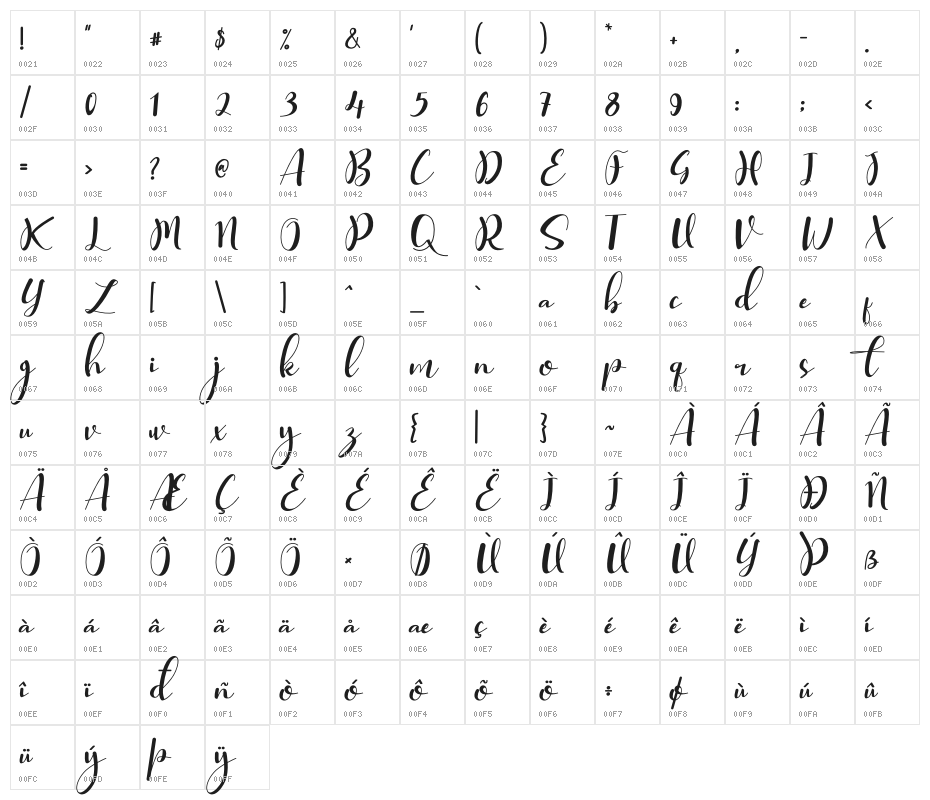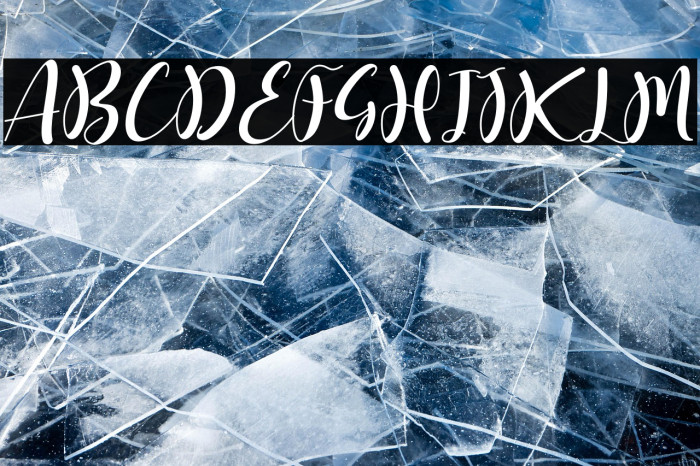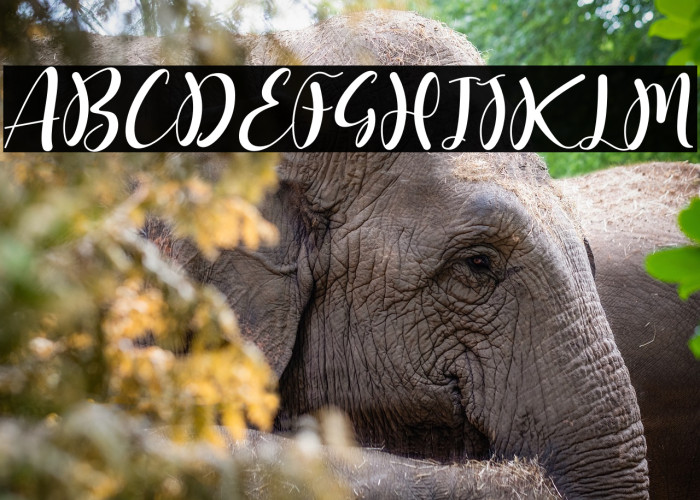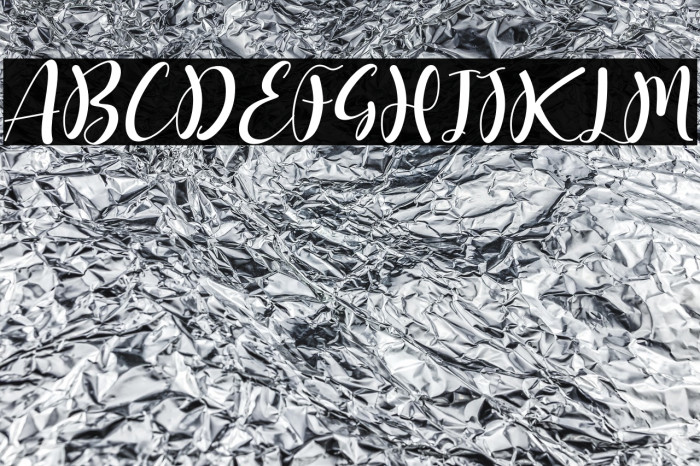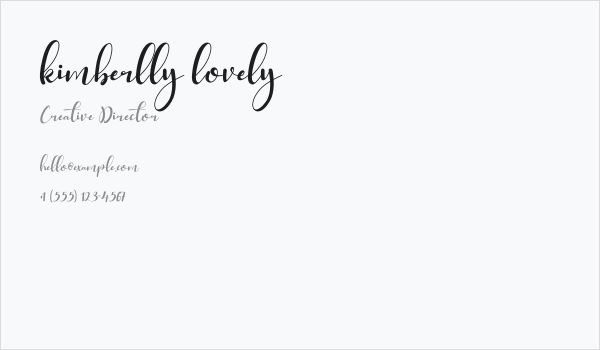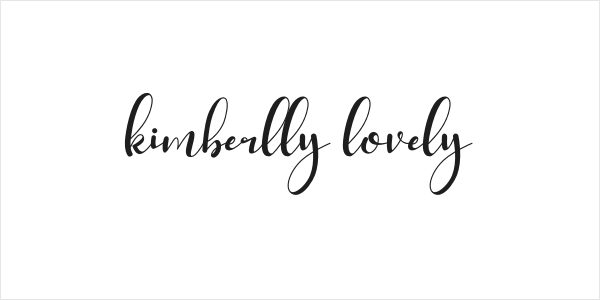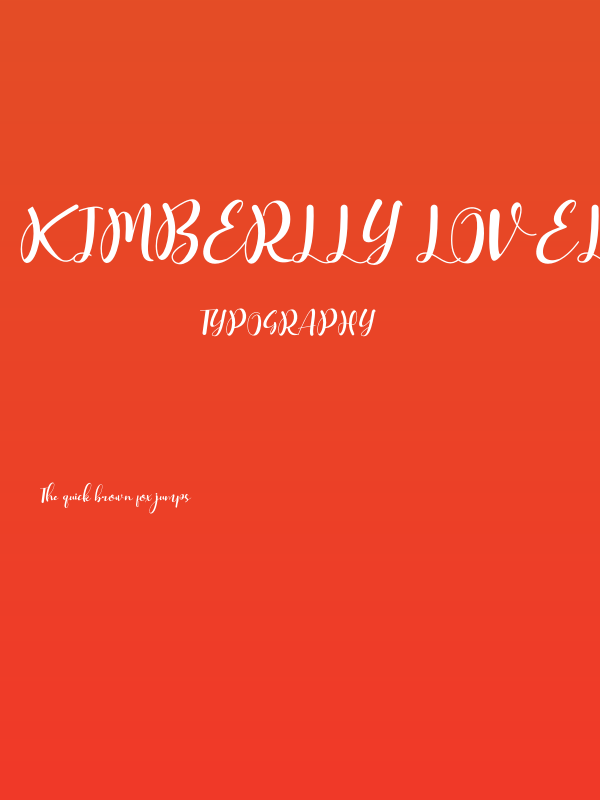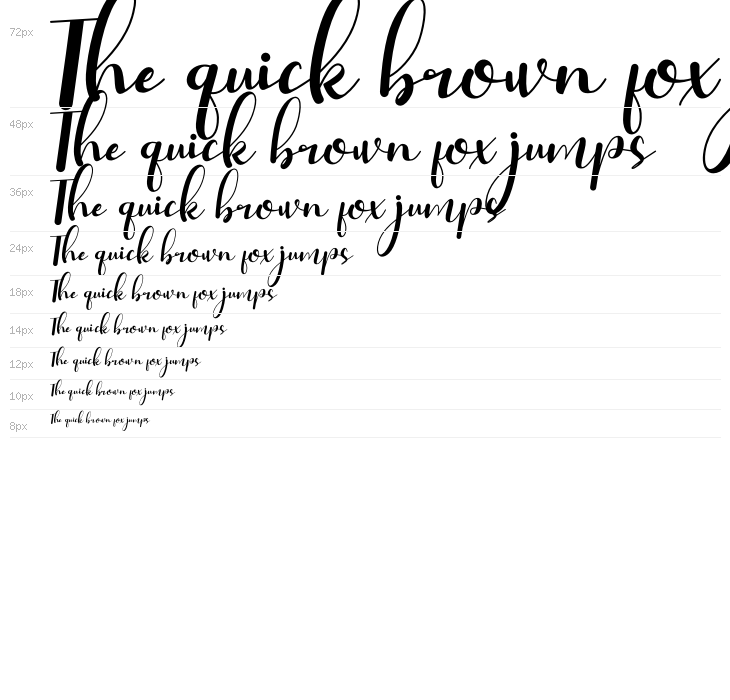
kimberlly lovely Font
kimberlly lovely Description
This font features an elegant and flowing script style, characterized by its smooth, cursive lines and graceful curves. The uppercase letters are distinct with a slightly exaggerated flourish, while the lowercase letters maintain a consistent and harmonious flow. The numerals are designed to complement the letters, offering a cohesive look. Special characters are crafted with the same attention to detail, ensuring they blend seamlessly with the rest of the font. This font exudes a sense of sophistication and charm, making it ideal for projects that require a touch of elegance.
| Use Case | Logos, Invitations, Decorative Text |
| Proposed Projects | Ideal for wedding invitations, elegant branding, personal stationery, and decorative signage. |